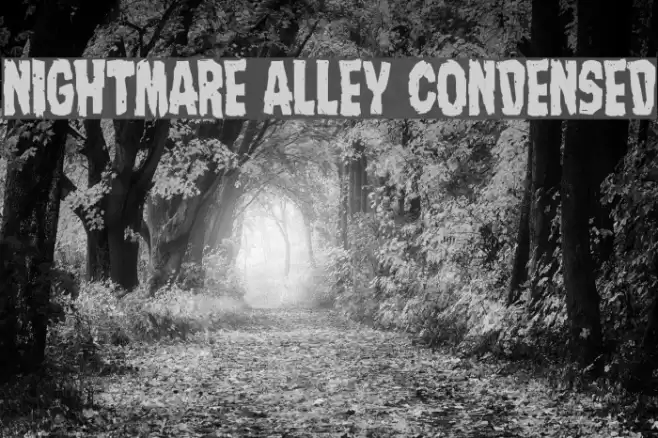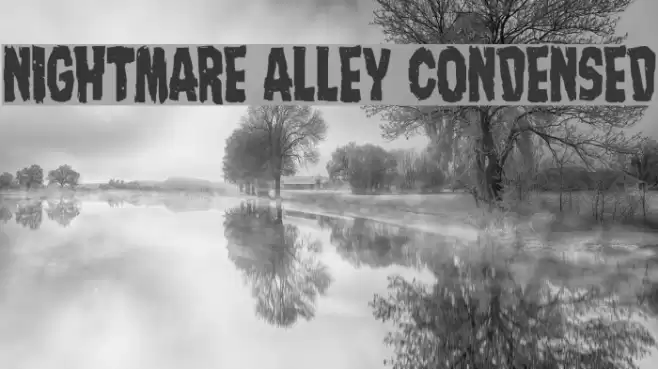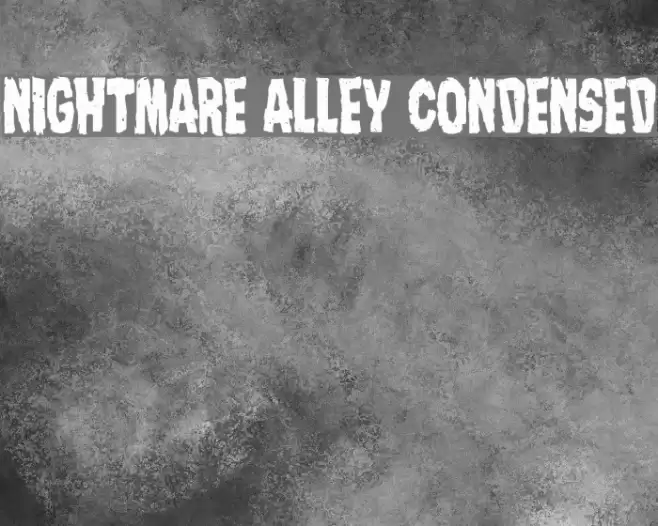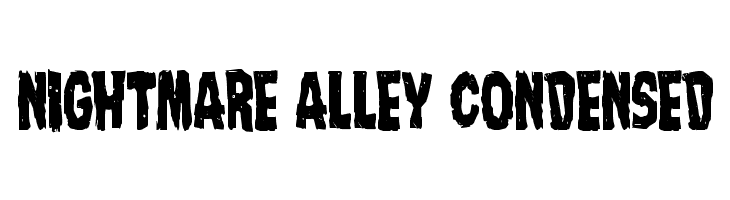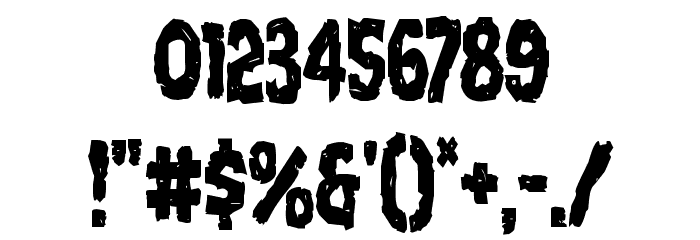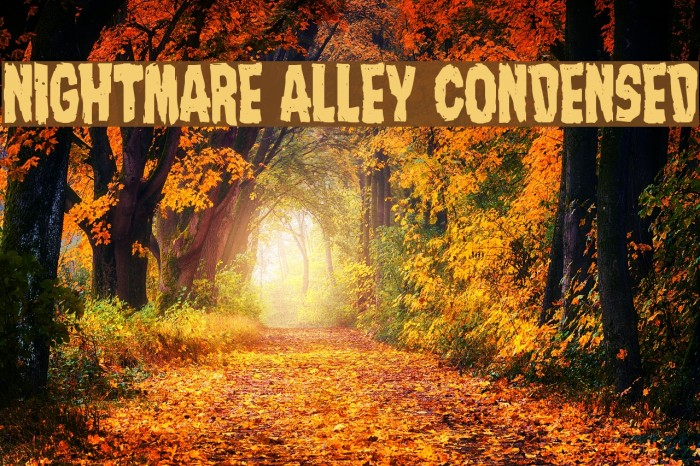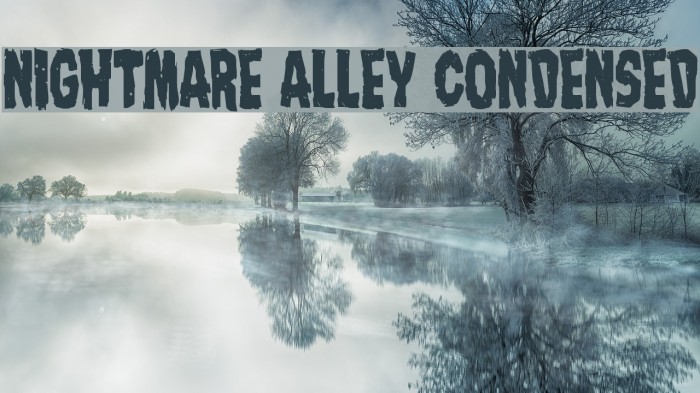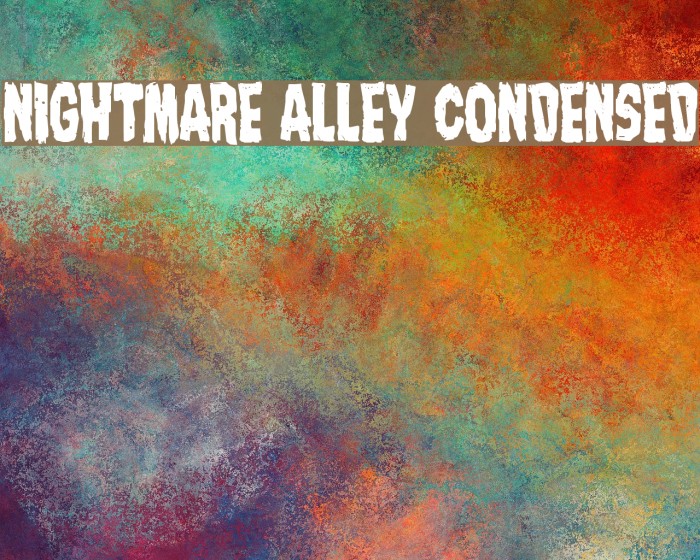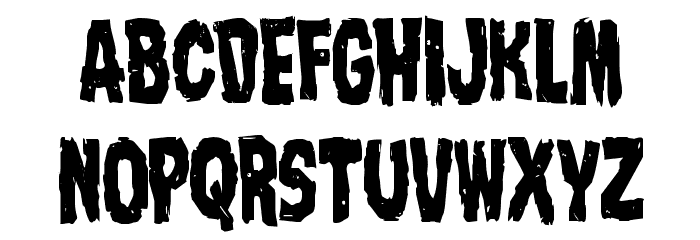
Nightmare Alley Condensed Font
Nightmare Alley Condensed Description
This font features a bold and distressed style, reminiscent of vintage horror or thriller themes. The characters are heavily textured, giving them a rugged and worn appearance. The uppercase and lowercase letters maintain a consistent style, with jagged edges and uneven lines that add to the overall eerie aesthetic. The numbers and special characters follow the same design principles, ensuring a cohesive look across all text elements. This font's unique and striking appearance makes it ideal for projects that require a dramatic and eye-catching typeface.
A bold, distressed font with a vintage horror theme from Horror fonts.
- Proposed Projects: Ideal for movie posters, Halloween event flyers, book covers for horror novels, and themed party invitations.
- Overall Style: Vintage